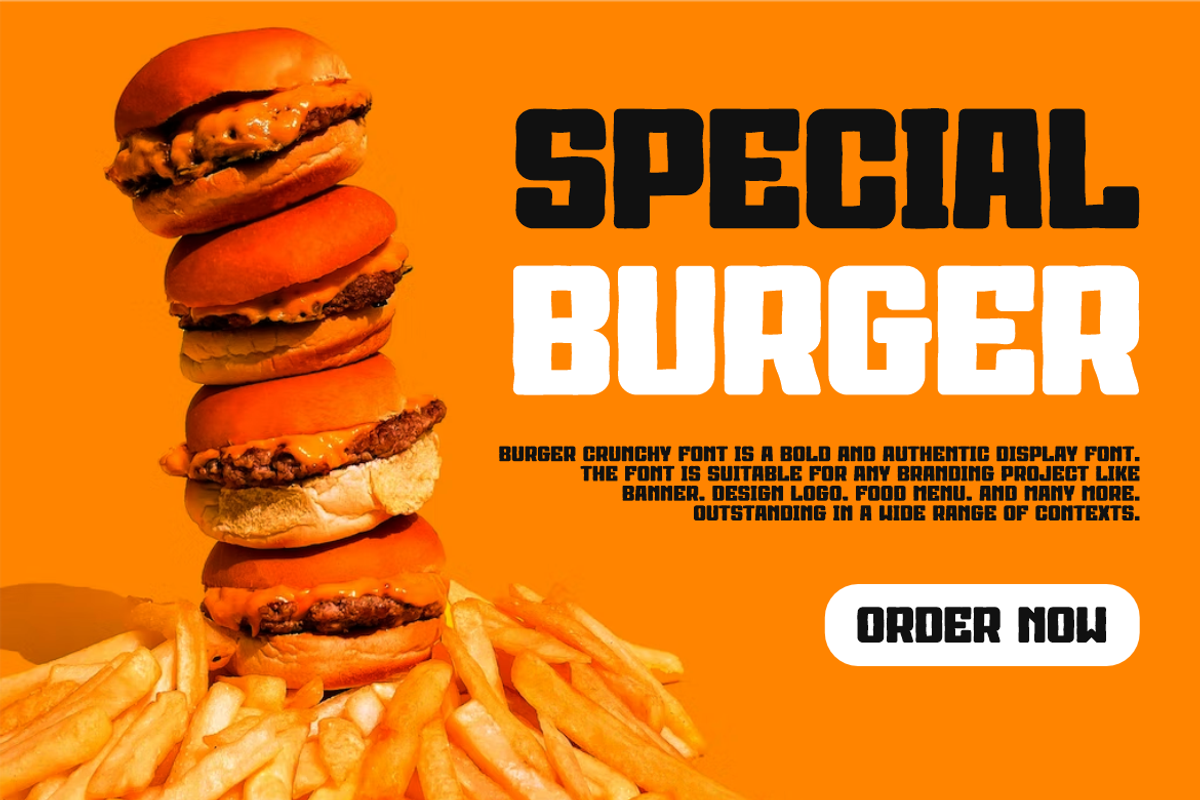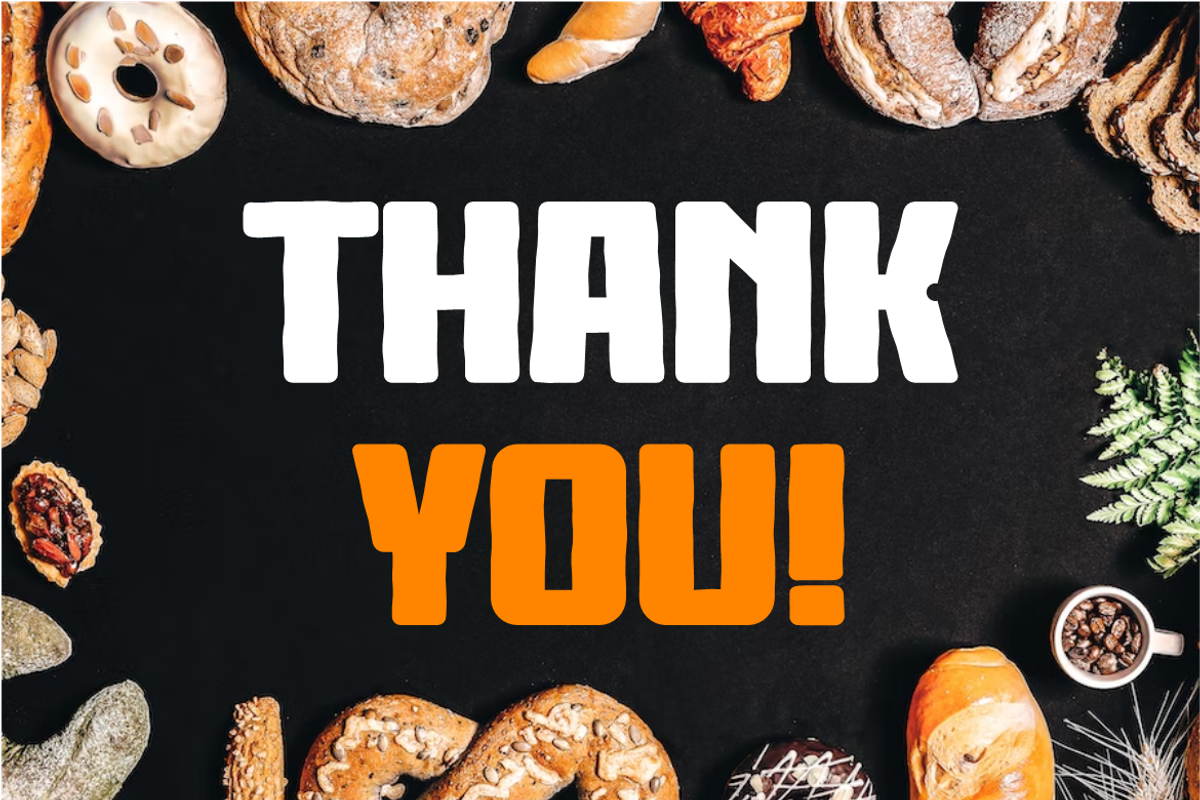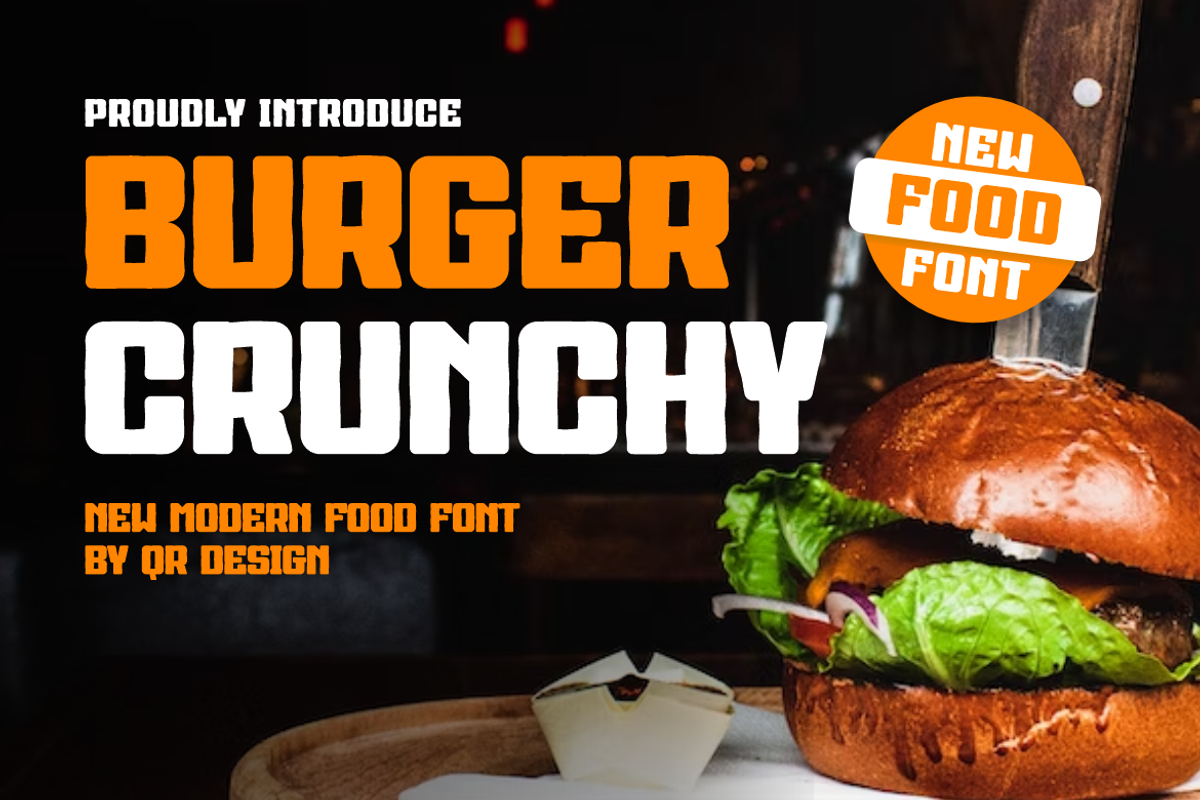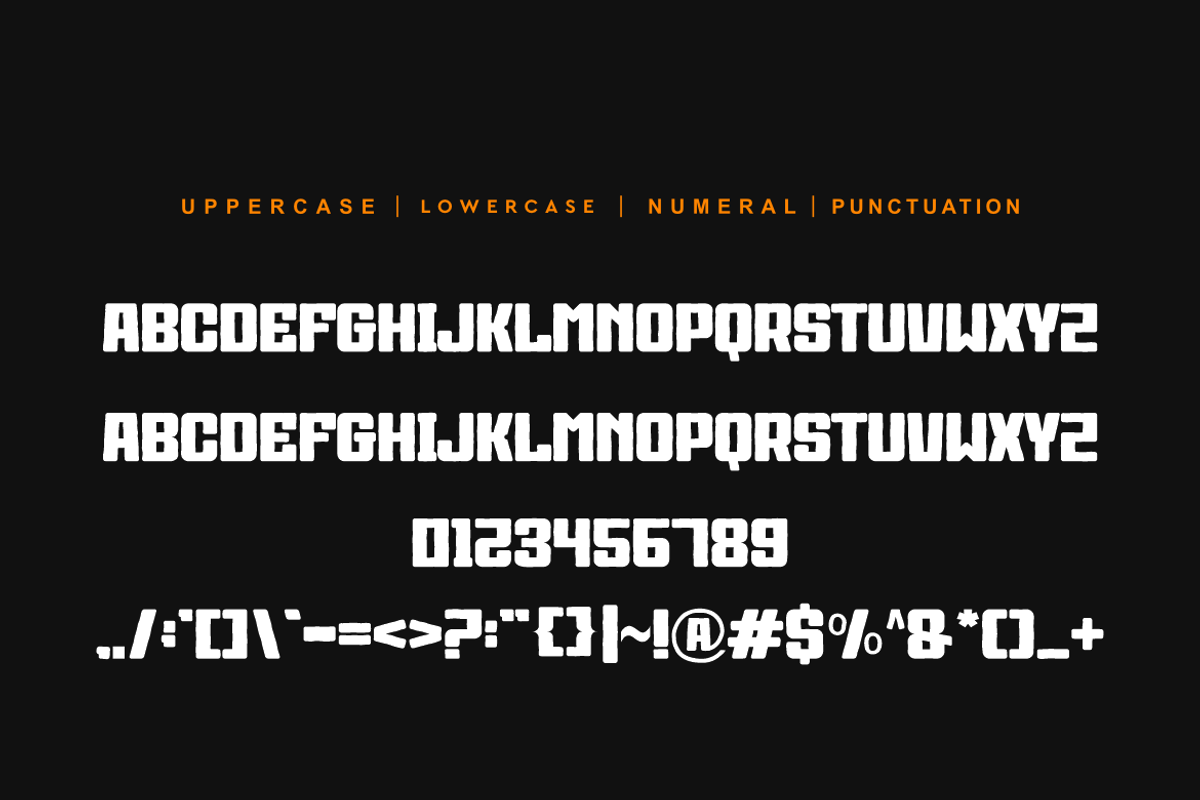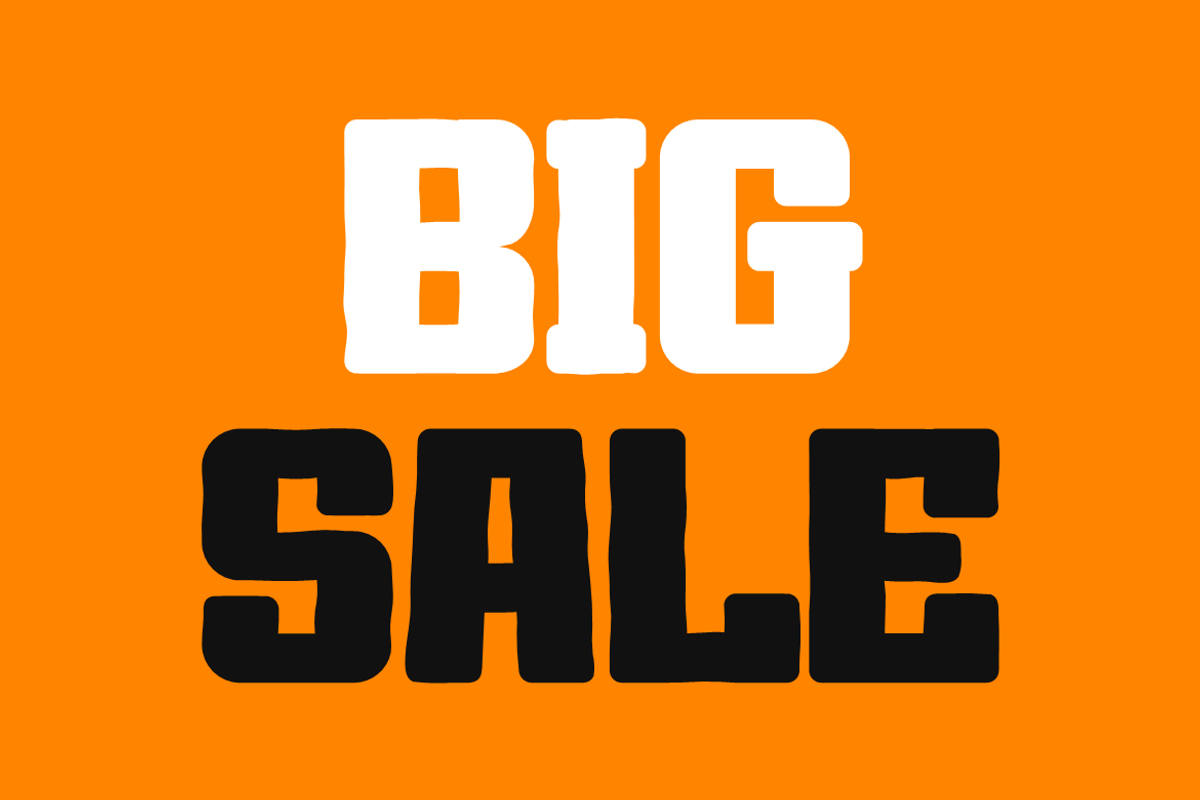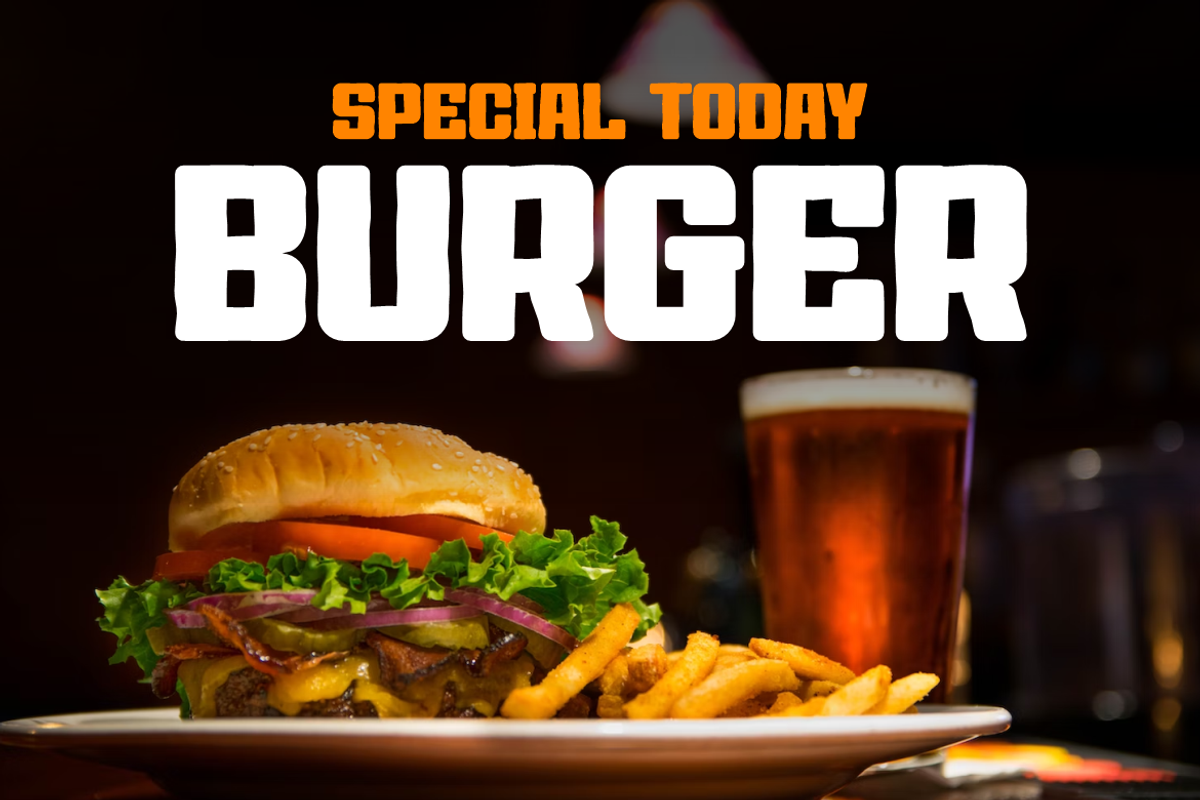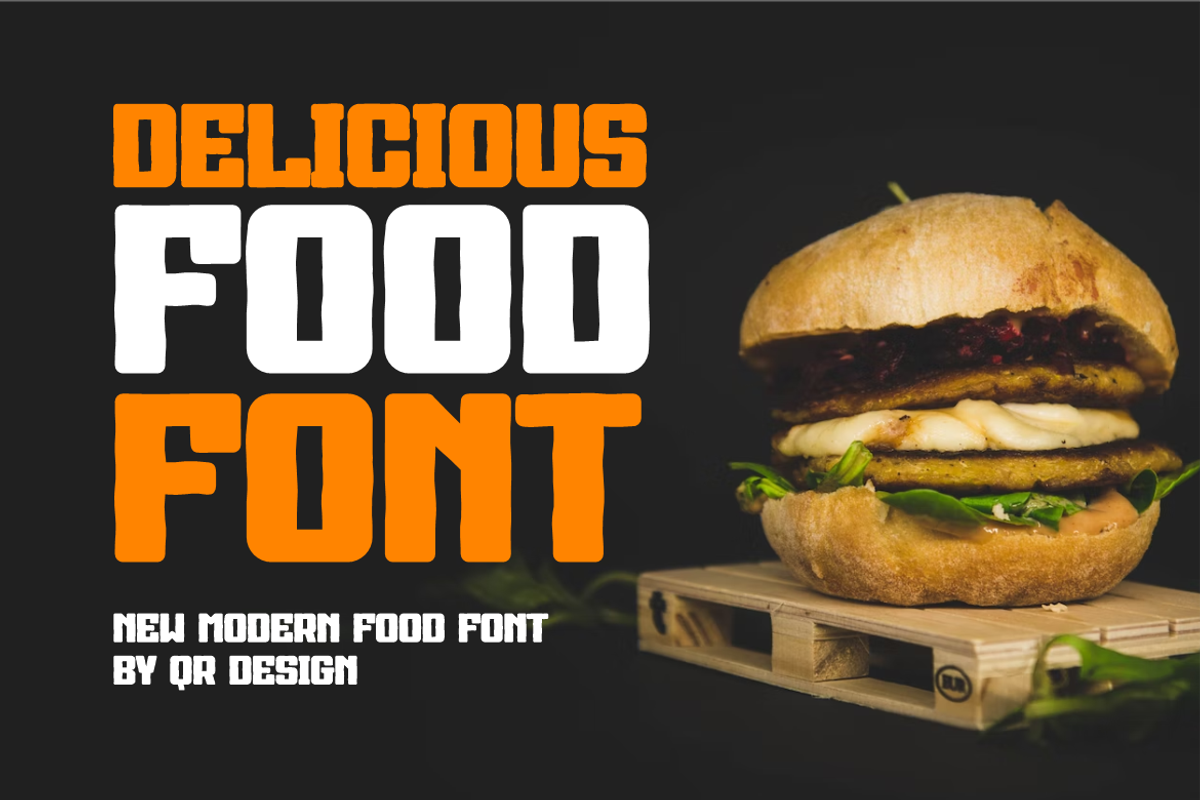
Burger Crunchy
Burger Crunchy Font is a bold and authentic display font. The font is suitable for any branding project like logo, sport, and many more. Outstanding in a wide range of contexts.